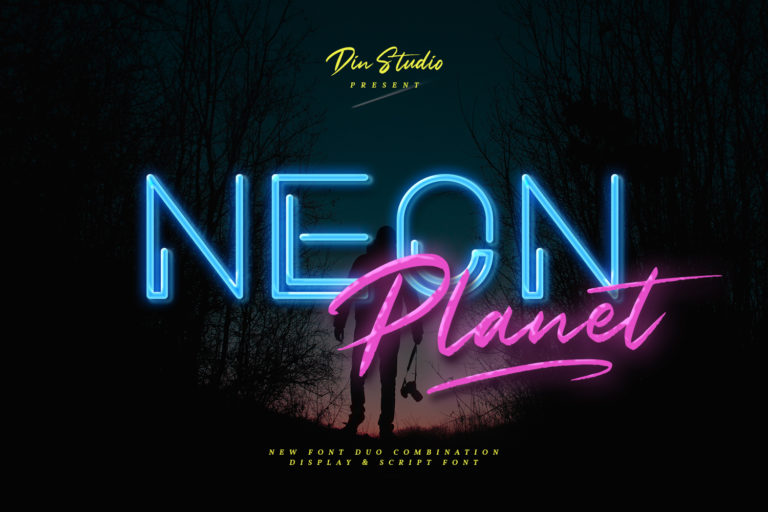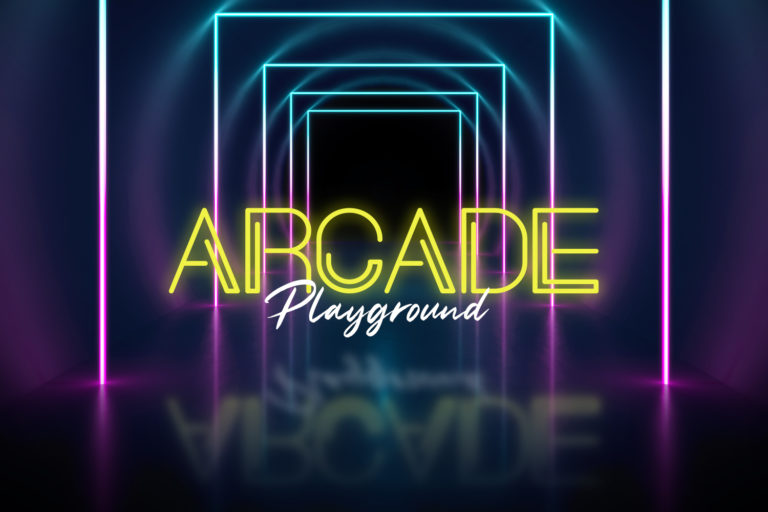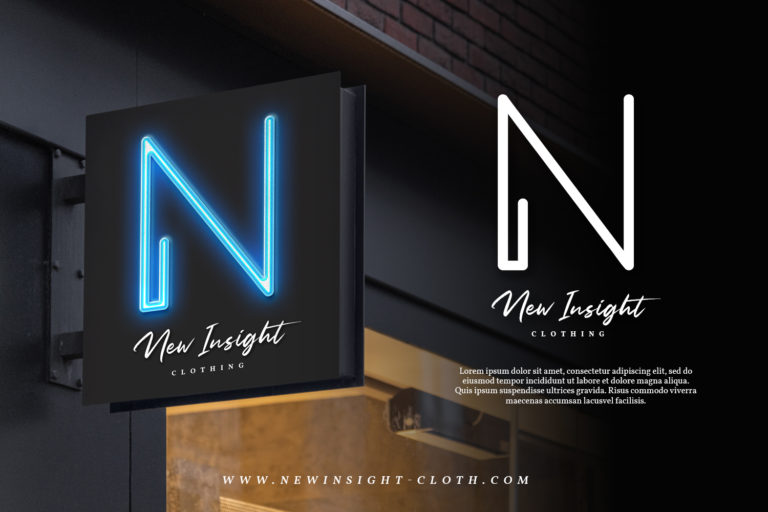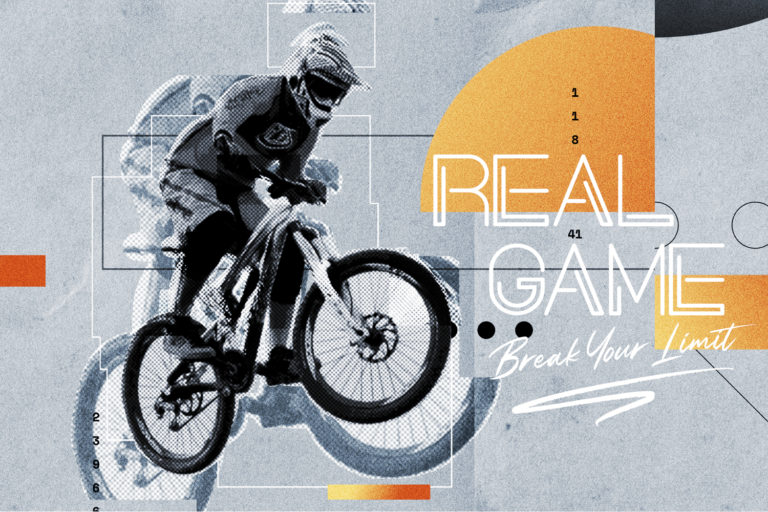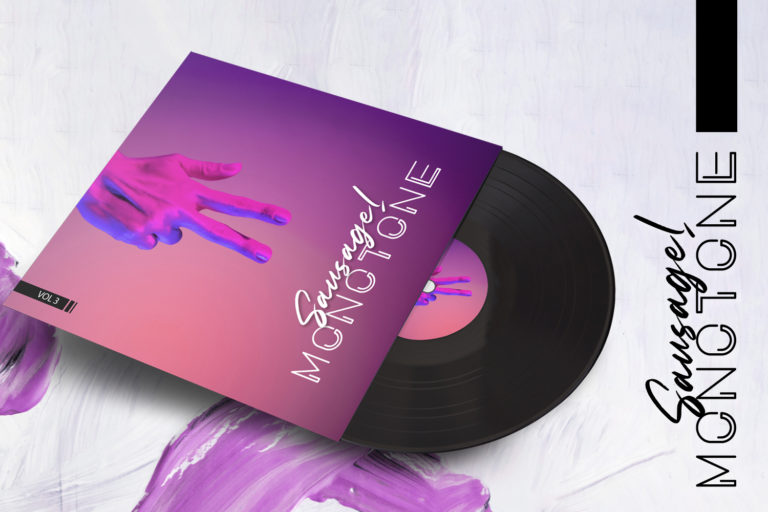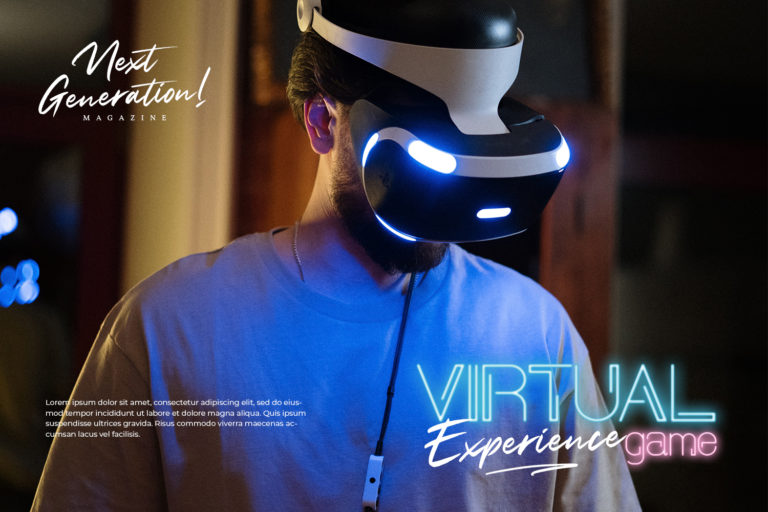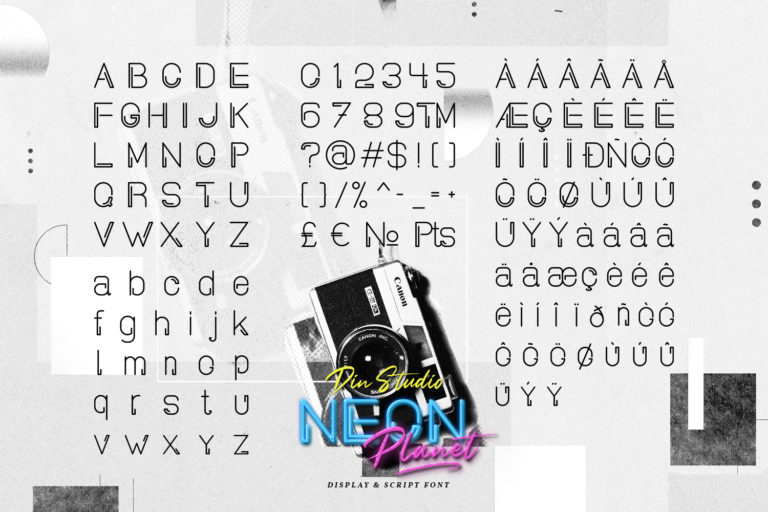
Neon Planet – Futuristic Font Duo Display and Script
Neon Planet
The Neon planet is a modern and futuristic font duo which combined with neon shape design and brush textured handwriting that will make your design projects more powerful. It is suitable for any projects that need Retro, Modern, and Casual Vibes such as brandings, advertisements, merchandise, logos, posters, and much more!